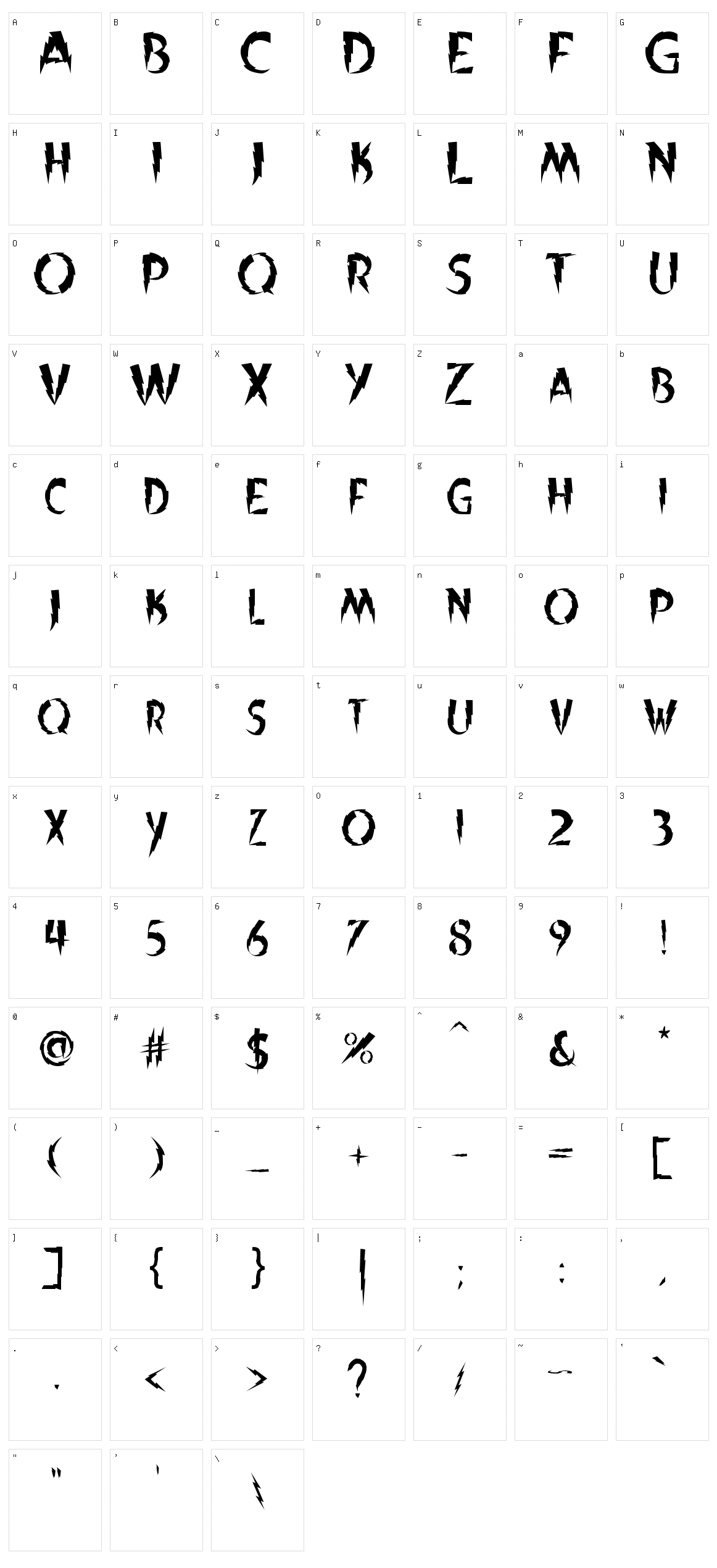
The free font Tuzos Volt is carefully designed by Tuzos Font, showcasing a thoughtful balance of creativity and usability and falls under the Cartoon font style. When you download the ZIP file, it contains only 25.91 KB of font files, making it lightweight and quick to download. Please review the license details below to understand permitted usage and distribution rights. If license information is not available, we recommend using this font for personal projects only or contacting the author directly for commercial usage permissions.